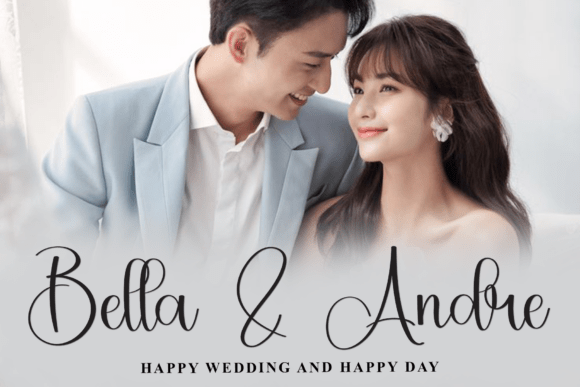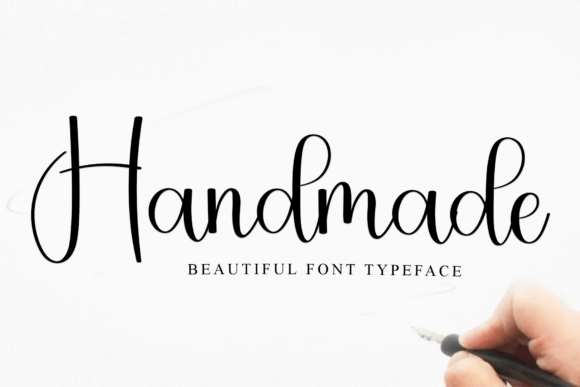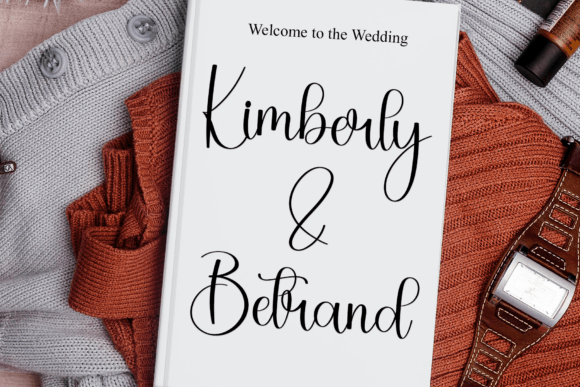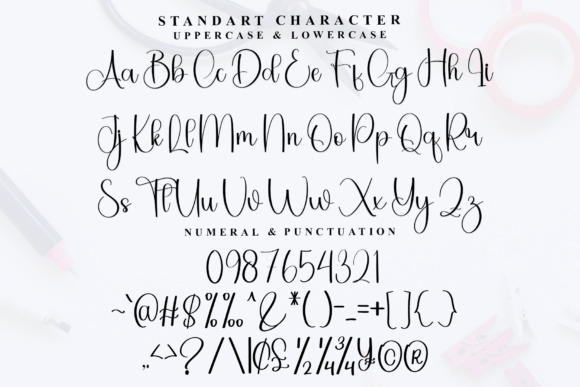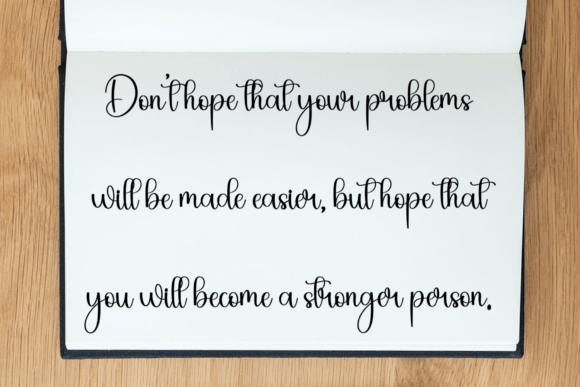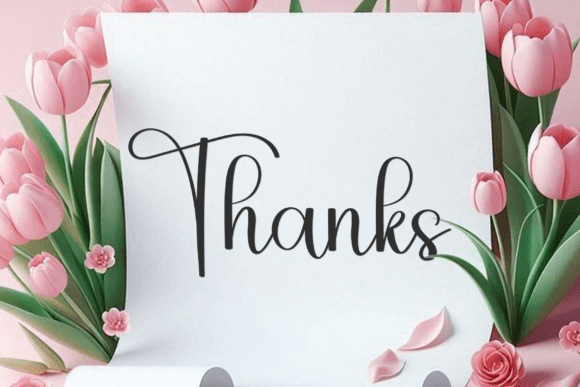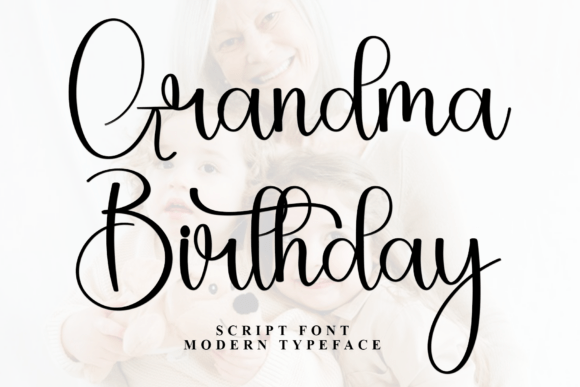
Introducing Grandma Birthday Font: Elevate Your Designs with Elegance and Charm
Are you on the hunt for a font that embodies sophistication, elegance, and a touch of nostalgia? Look no further than the Grandma Birthday Font, a stylish handwritten script font that is sure to captivate your audience. With its fluid, graceful strokes, this beautiful font is perfect for designers and crafters seeking to add a personal and refined touch to their branding, invitations, stationery, and more.
The Essence of Grandma Birthday Font
Grandma Birthday Font boasts smooth curves and a natural flow, creating a timeless look that is both refined and eye-catching. Its elegant strokes exude a sense of luxury and sophistication, making it an ideal choice for a wide range of design projects. Whether you’re working on a branding campaign, crafting bespoke invitations, or designing beautiful stationery, this versatile font is sure to elevate your designs to new heights.
Key Features of Grandma Birthday Font
- Fluid, Graceful Strokes: The font’s fluid strokes create a sense of movement and elegance, adding a touch of sophistication to any design.
- Handwritten Script Style: The handwritten script style of Grandma Birthday Font gives it a personal and unique feel, perfect for designs that require a touch of warmth and personality.
- Smooth Curves and Natural Flow: The font’s smooth curves and natural flow create a timeless look that is both refined and eye-catching.
- Versatility: Grandma Birthday Font is perfect for a wide range of design projects, including branding, invitations, stationery, and more.
Grandma Birthday Font is a must-have for designers and crafters seeking to add a touch of elegance and sophistication to their work. Whether you’re creating bespoke invitations, designing beautiful stationery, or working on a branding campaign, this versatile font is sure to impress. Its unique and stylish appearance makes it perfect for a wide range of projects, from:
- Wedding Invitations: Add a touch of elegance and sophistication to your wedding invitations with Grandma Birthday Font.
- Branding: Elevate your brand with a font that exudes luxury and refinement.
- Stationery: Create beautiful stationery that is both refined and eye-catching.
- DIY Projects: Add a personal touch to your DIY projects with Grandma Birthday Font.
Why Choose Grandma Birthday Font?
With so many fonts available, why choose Grandma Birthday Font? Here are just a few reasons why this stylish handwritten script font stands out from the rest:
- Unique and Stylish: Grandma Birthday Font has a unique and stylish appearance that is sure to captivate your audience.
- Versatile: This versatile font is perfect for a wide range of design projects.
- Elegant and Sophisticated: Grandma Birthday Font exudes elegance and sophistication, making it perfect for designs that require a touch of luxury and refinement.
In conclusion, Grandma Birthday Font is a stylish handwritten script font that is sure to elevate your designs to new heights. With its fluid, graceful strokes, smooth curves, and natural flow, this beautiful font is perfect for designers and crafters seeking to add a personal and refined touch to their work. Whether you’re working on a branding campaign, crafting bespoke invitations, or designing beautiful stationery, Grandma Birthday Font is a must-have font that is sure to impress.